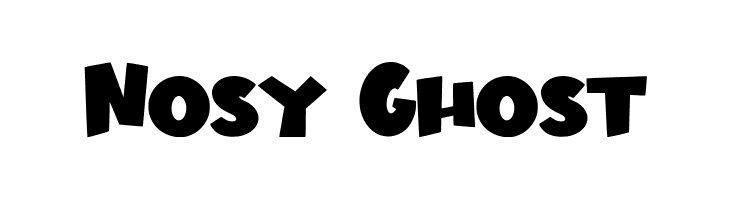
• Nosy Ghost 字体
( Fonts by Hatf Type )
A bold, playful font with a whimsical and energetic style.
• Nosy Note DEMO 字体
( Fonts by Pizzadude )
A playful, handwritten font with rounded, consistent strokes and a casual aesthetic.
• NOT A DROP 字体
A bold, brush-style font with a hand-drawn, energetic appearance.
• NOT A DROP LIGHT 字体
A bold, playful, hand-drawn font with an energetic and casual style.
• NOT A DROPE 字体
( Fonts by www.dcoxy.com )
A bold, hand-drawn font with an expressive and playful style.
• NOT A DROPE LIGHT 字体
( Fonts by www.dcoxy.com )
A bold, playful, hand-drawn font with a cartoonish style.
• Not Bad_demo 字体
A dynamic handwritten font with fluid, cursive letterforms.
• Not Fantastic 字体
A bold, playful handwritten font with rounded edges and a strong presence.
• Not Found 字体
( Fonts by Gassstype )
A bold, playful font with a hand-drawn, irregular style.
• Not Found 字体
( Fonts by Gassstype )
A bold, playful font with thick, rounded strokes and a hand-drawn feel.